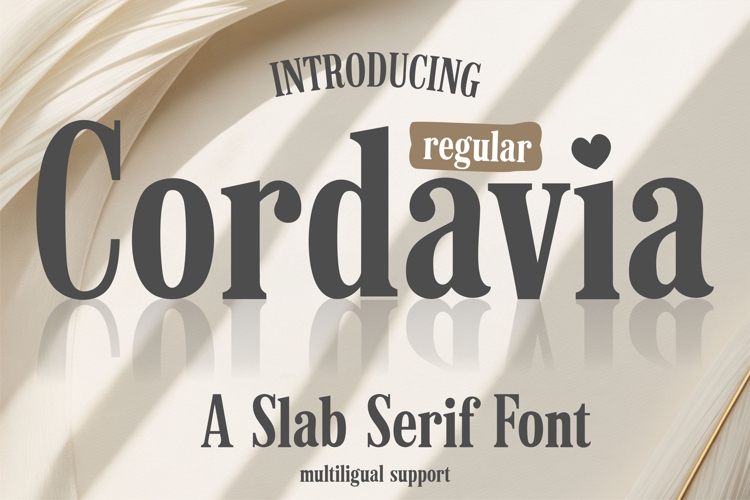
Cordavia Regular Classic Slab Serif Font with Heart
Cordavia Regular is a charming and stylish slab serif font that blends classic elegance with a friendly twist. Designed with soft curves, strong serifs, and subtle vintage flair, this font is perfect for branding, packaging, t-shirts, posters, signage, and inspirational quotes. Its unique heart-shaped dot on the "i" adds a gentle, memorable detail to your designs.
Whether you're creating logos, apparel, or home decor, Cordavia Regular delivers clarity and character in every letter. It includes full multilingual support, uppercase and lowercase characters, numbers, and essential symbols. This font is ideal for both print and digital projects and works seamlessly with Cricut, Silhouette, Canva, Procreate, Photoshop, and Illustrator.